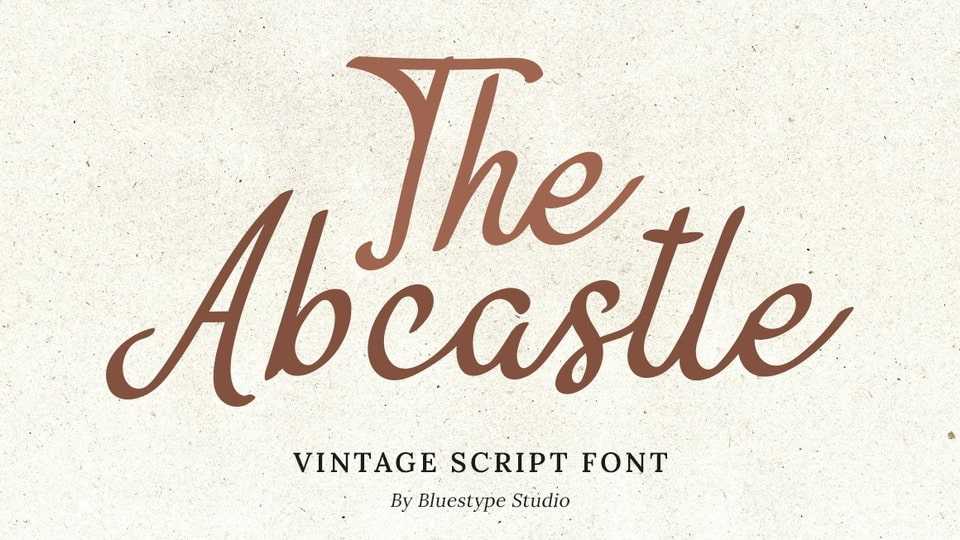
Download The Abcastle font, a typeface that embodies the essence of vintage script with an elegant flair. Its timeless charm and intricate details evoke a sense of nostalgia, reminiscent of classic handwritten scripts from bygone eras.